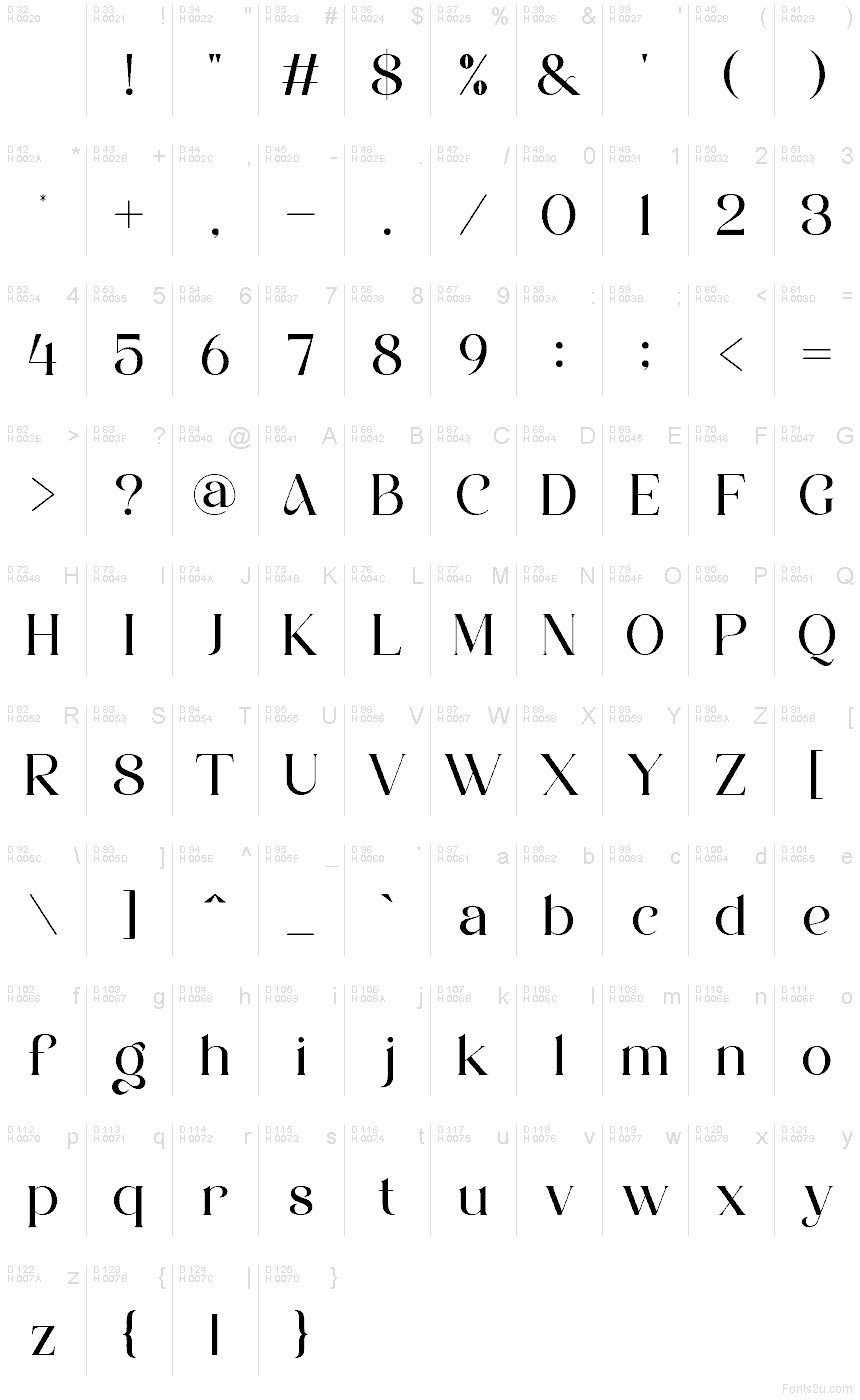
Enorish Regular
Enorish font by Ermedia Studio is a free high-contrast serif font. Its defining move is the carved, crescent-like counter shapes that slice through the thick strokes, leaving crisp highlights and knife-edge serifs. The result feels polished and editorial—inky blacks, hairline thins, and a graceful sway that reads luxurious without trying too hard.
Using Enorish, headlines snap into focus and carry a couture vibe that shines on fashion branding, beauty packaging, magazine covers, hero headers, restaurant menus, and statement posters. This free font loves large sizes and a bit of generous tracking. Pair it with a quiet, neutral sans for body copy to let Enorish do the sparkling.